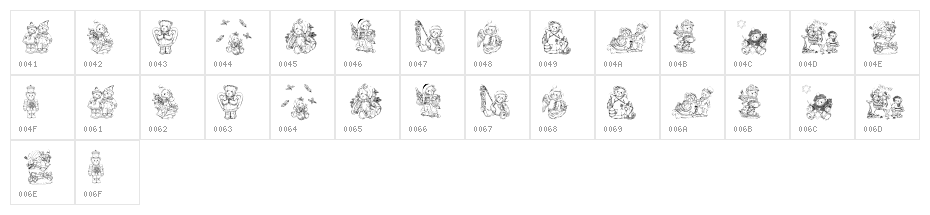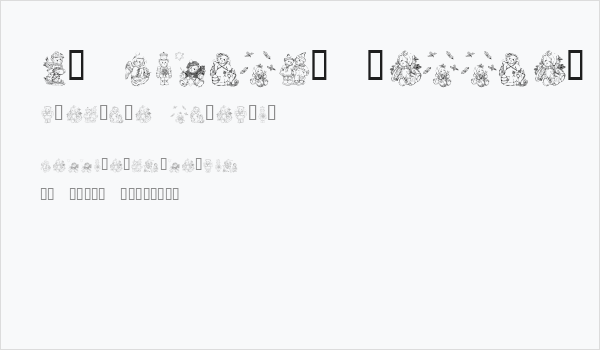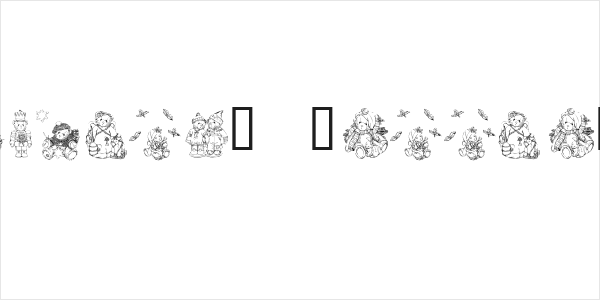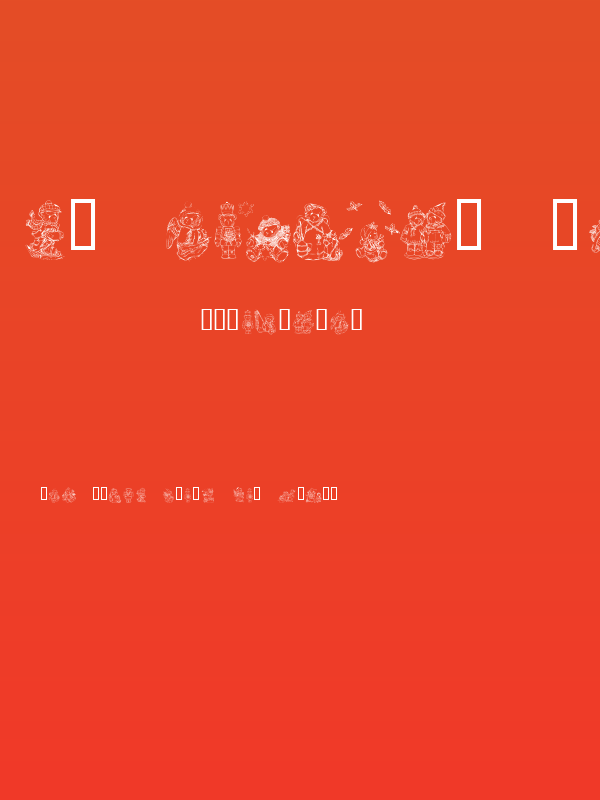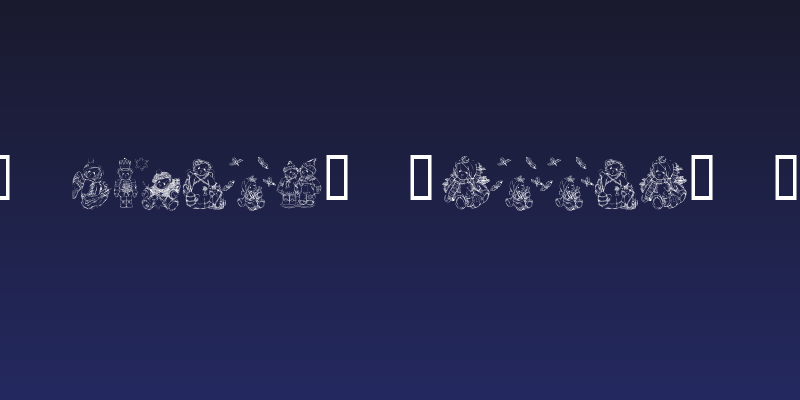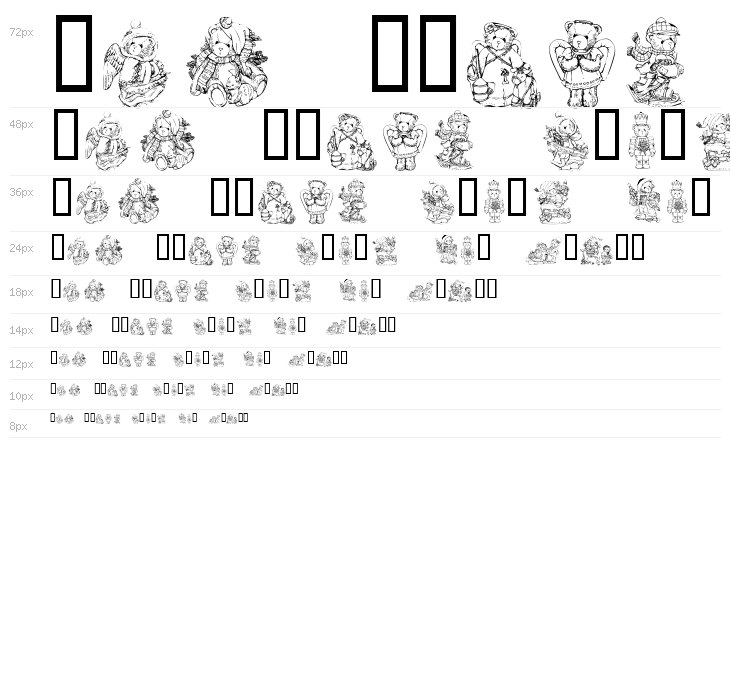
KR Holiday Teddies Two Font
KR Holiday Teddies Two Description
This is a decorative font featuring whimsical teddy bear illustrations. Each character is represented by a unique teddy bear design, capturing various playful and festive themes. The designs are intricate, with detailed line work that gives each teddy bear a distinct personality. The font is primarily illustrative, making it ideal for creative projects that require a touch of charm and whimsy. The characters are not traditional alphanumeric symbols but rather artistic representations, making this font suitable for decorative purposes rather than standard text use.
| Overall Style | Whimsical, Playful, Festive |
| Use Case | Decorative purposes, Illustrations, Themed projects |
| Proposed Projects | Ideal for children's book illustrations, holiday greeting cards, playful invitations, and decorative scrapbooking. |